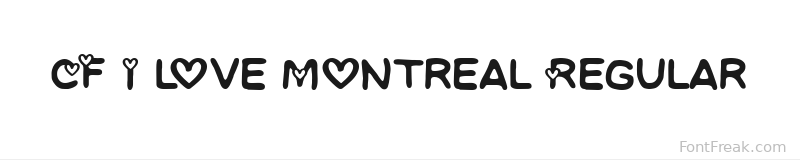
CF I love Montreal Regular
About CF I love Montreal Regular
CF I love Montreal Regular is a distinctive display font that embodies a playful yet casual aesthetic. Designed by Cloutierfontes in 2013, this font falls into the decorative category, making it an ideal choice for projects that seek to convey joy and warmth. The visual characteristics of this font include a rounded stroke weight and a friendly, informal style, which gives it a charming and approachable appearance. The letters exhibit a consistent spacing that enhances readability while maintaining a whimsical touch, characterized by heart-shaped accents that add a unique flair.
This font is particularly well-suited for a variety of creative applications. It shines in wedding invitations where a personal and heartfelt touch is desired. Additionally, it is perfect for event posters, especially those promoting local festivities or cultural celebrations, capturing the spirit of community and love. Restaurant menus can also benefit from its inviting style, drawing in customers with its casual yet appealing look. Furthermore, the font can be effectively used in social media graphics, targeting content creators who want to engage their audiences with a fun and lively vibe.
The target audience for CF I love Montreal Regular includes graphic designers looking for a unique typeface to enhance their projects, small business owners seeking to create memorable branding, and content creators who aim to add a touch of personality to their visual content.